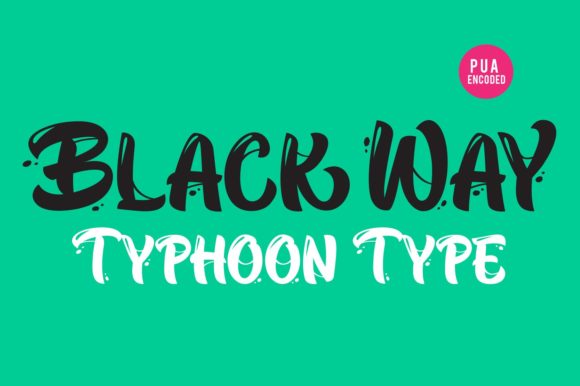
The Ultimate Design Hack: Unlocking the Power of Black Way Font
Ah, the thrill of the design hunt! I still remember the time I was working on a project, pouring my heart and soul into creating the perfect visual identity, only to be stumped by one thing: the font. My client wanted something bold, yet elegant; modern, yet timeless. I scoured the internet, tried out countless fonts, but nothing seemed quite right. That was until I stumbled upon the Black Way Font. ✨
I’ve had the pleasure of working with Black Way Font on several projects, and here’s my honest take:
• ✅ Versatility: This font is perfect for a wide range of applications, from logos and name tags to advertising, product packaging, clothing, social media, and greeting cards.
• ✅ PUA Encoding: The font is PUA encoded, which means accessing all the amazing glyphs and ligatures is a breeze!
• ✅ Ease of Use: Whether you’re a seasoned designer or a creative hobbyist, Black Way Font is easy to use and navigate.
Now, no font is perfect, and here are a few quirks to keep in mind:
• 🤔 Pairing Challenges: As with any bold font, finding the right pairing can be a bit tricky. Experiment with different combinations to find the perfect match.
The Story Behind Black Way Font
Black Way Font was designed with the modern creative in mind. Its sleek lines, bold shapes, and elegant curves make it perfect for a wide range of applications. The font’s creator aimed to craft a typeface that would be both versatile and stylish, suitable for everything from logos and branding to social media and packaging.
What is Black Way Font best used for? Black Way Font is perfect for logos, name tags, advertising, product packaging, clothing, social media, and greeting cards.
Is Black Way Font easy to use? Yes, Black Way Font is designed to be user-friendly, even for those without extensive design experience.
And there you have it – a comprehensive guide to unlocking the power of Black Way Font. Whether you’re a seasoned designer or a creative hobbyist, this font is sure to become a staple in your design toolkit. So go ahead, experiment with Black Way Font, and see the amazing results for yourself! 🎉